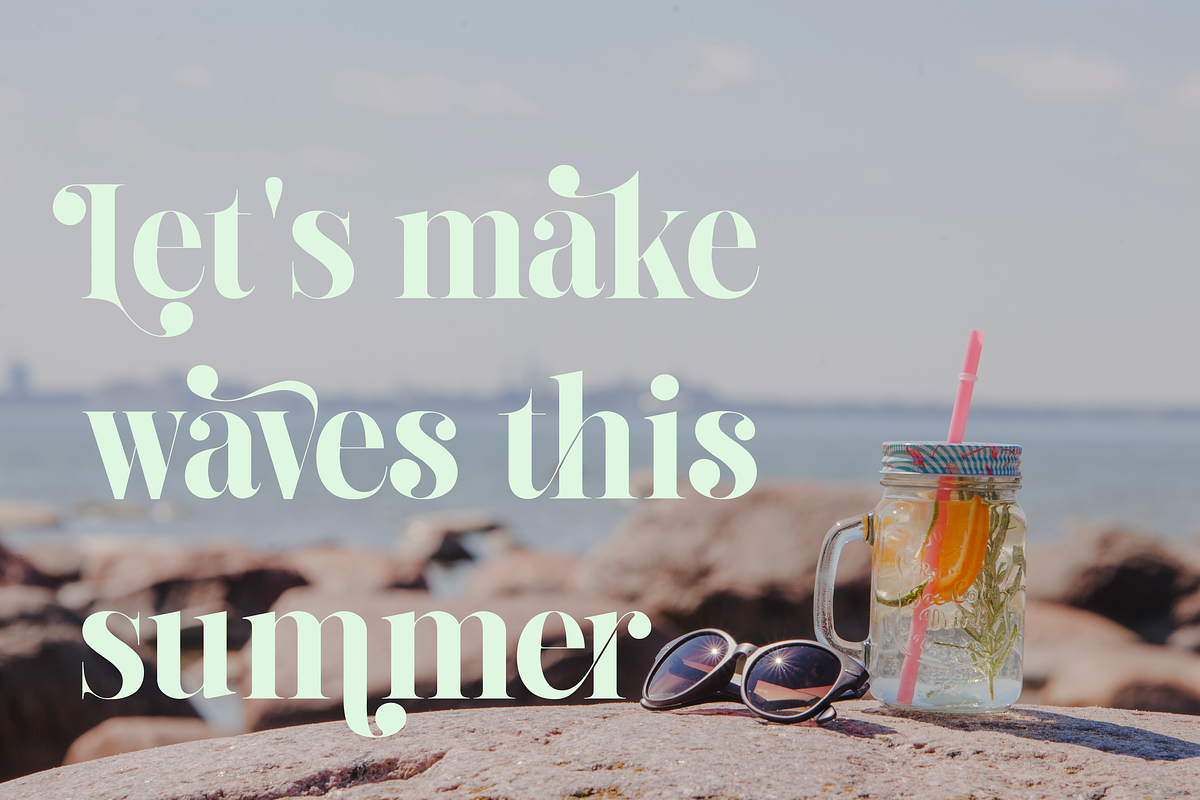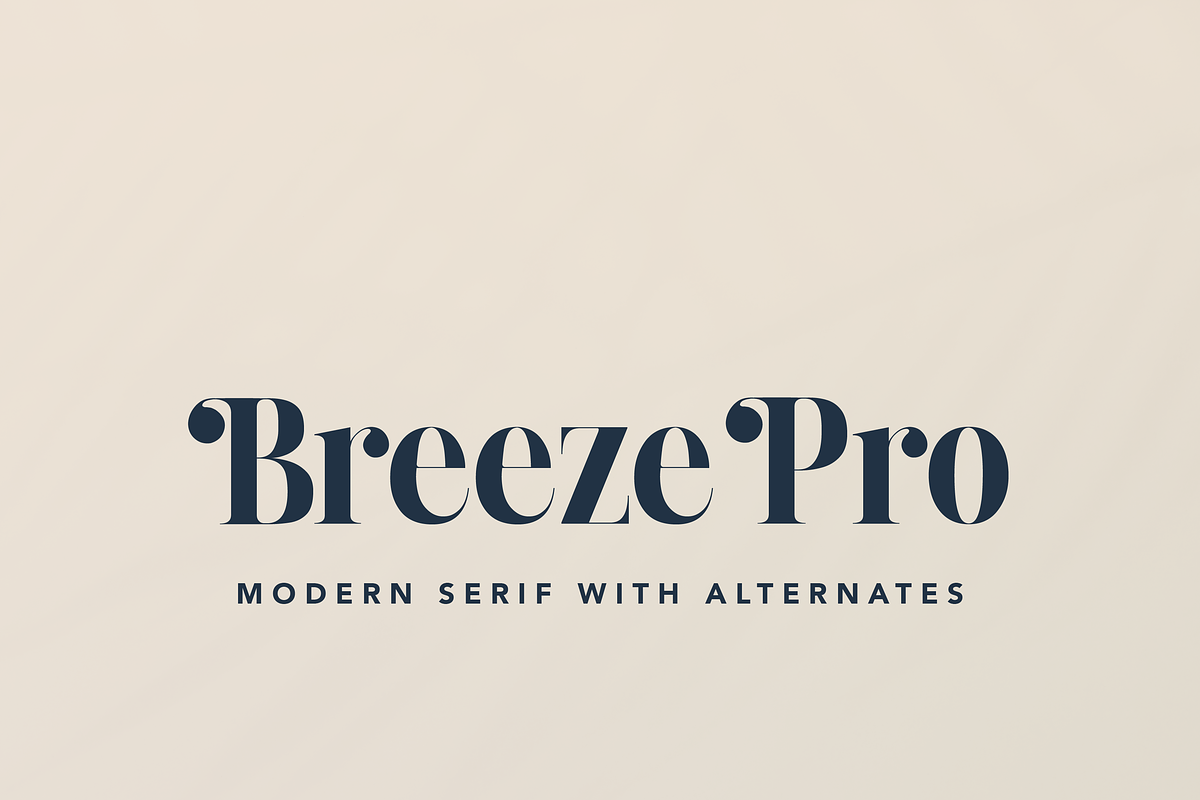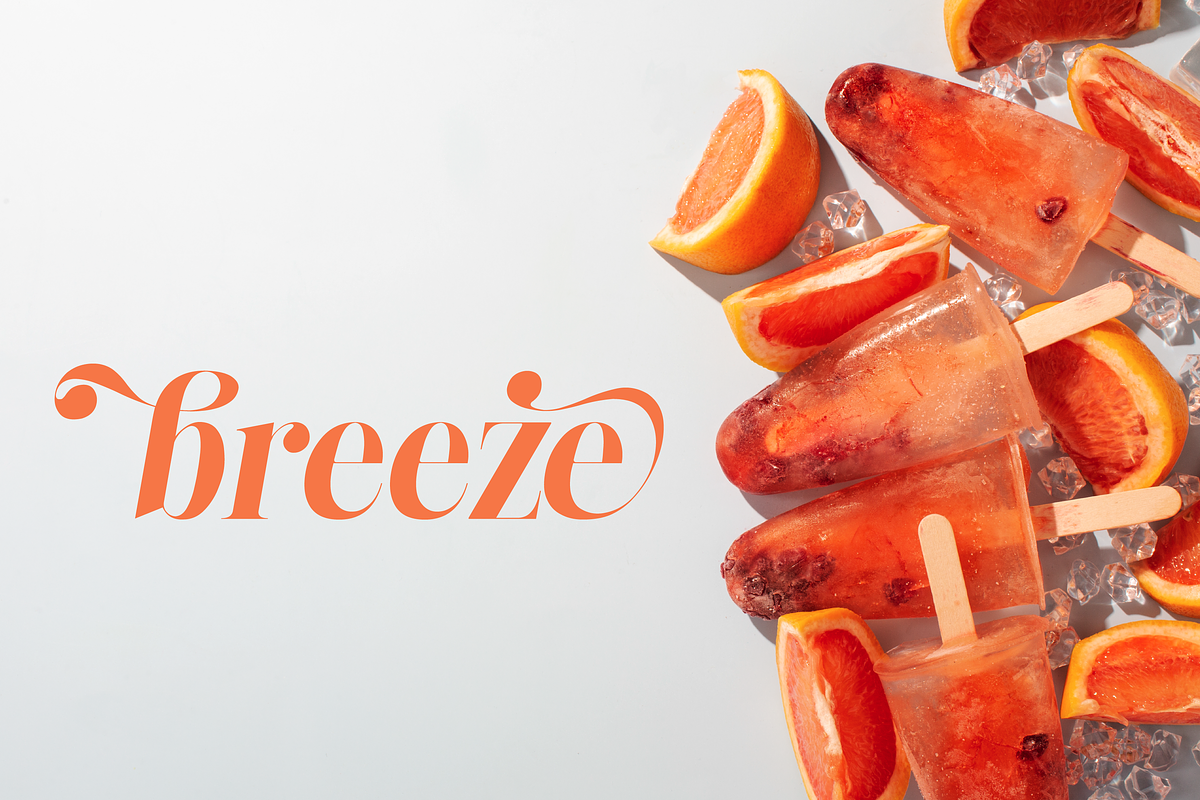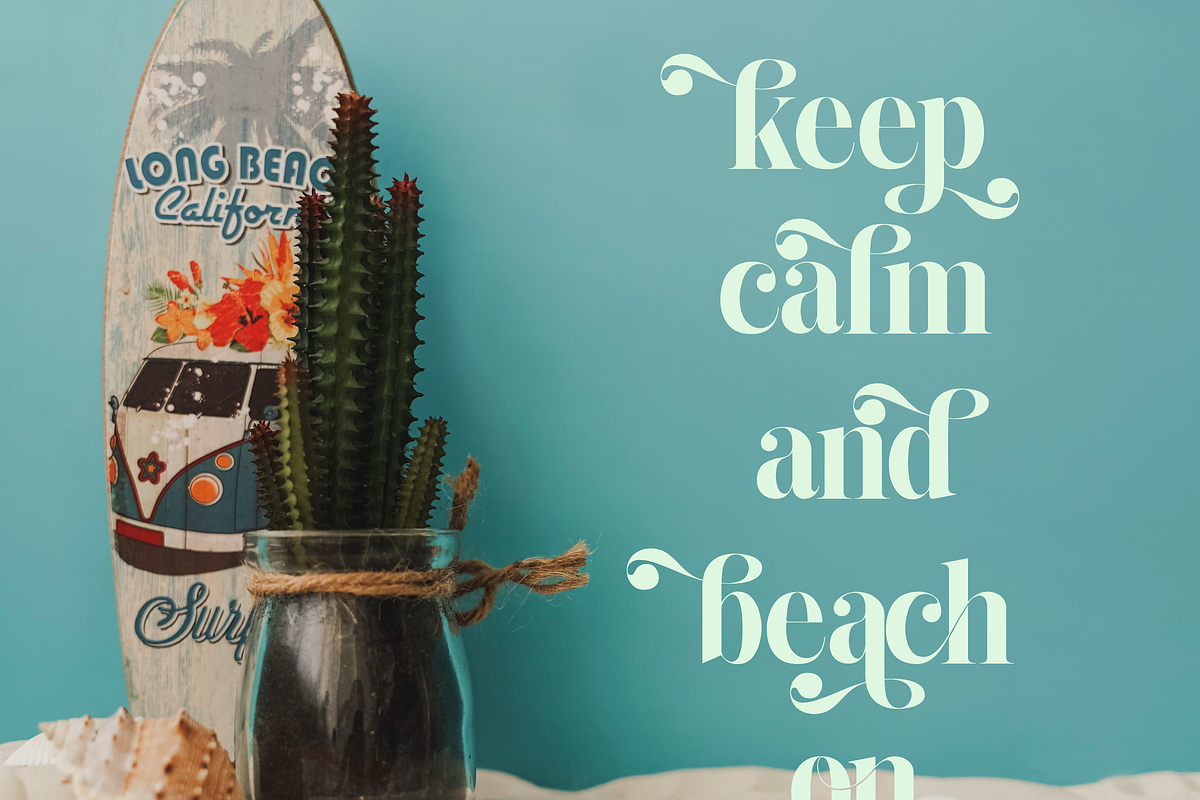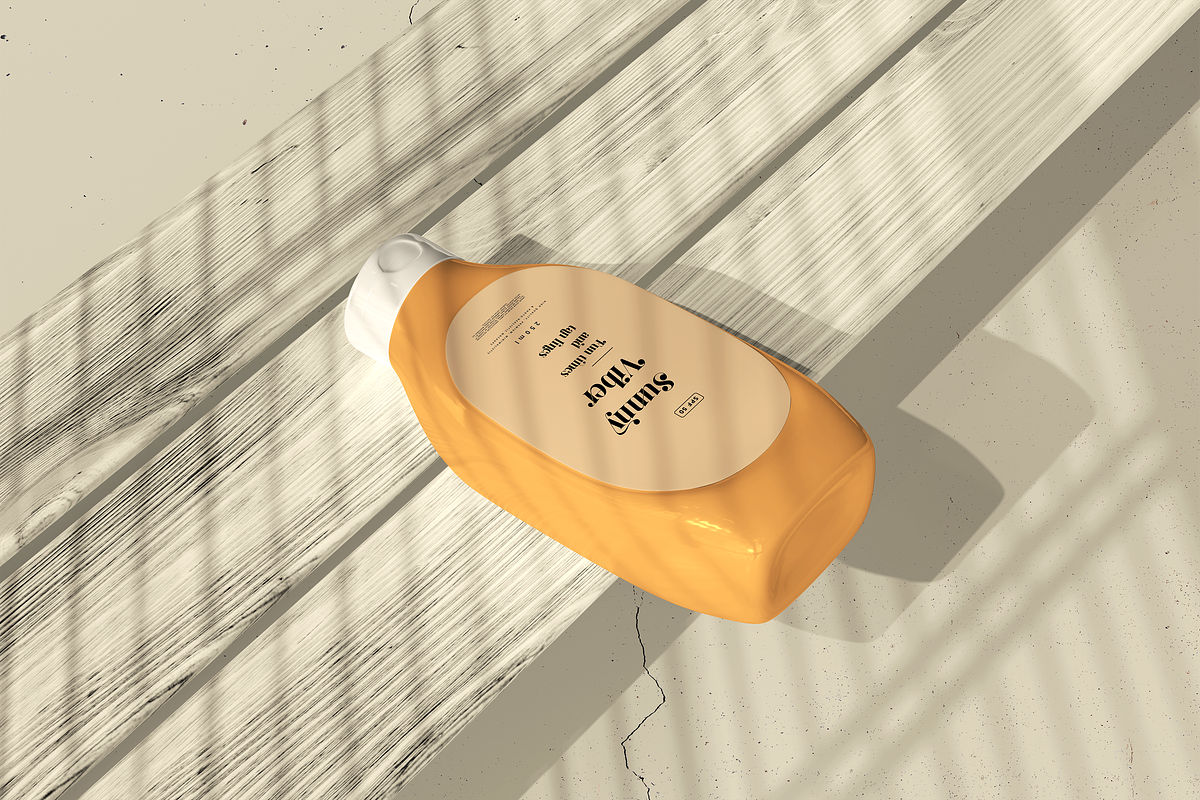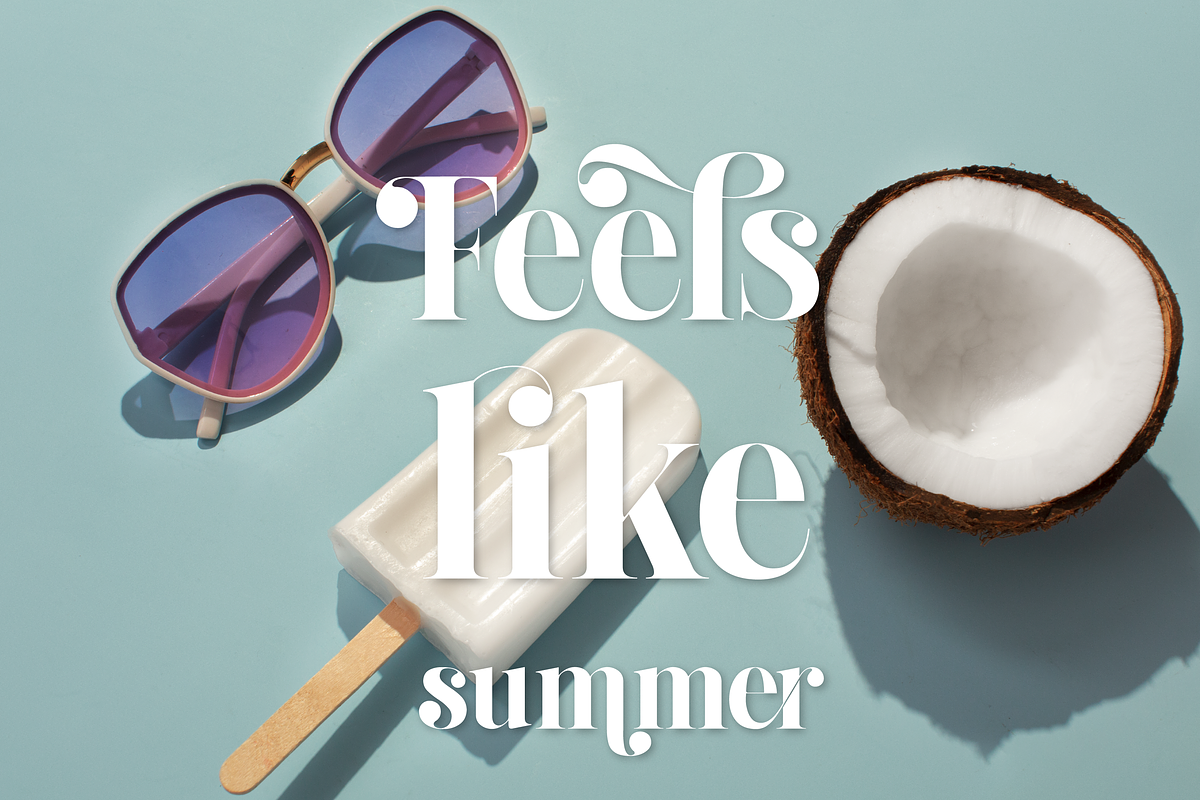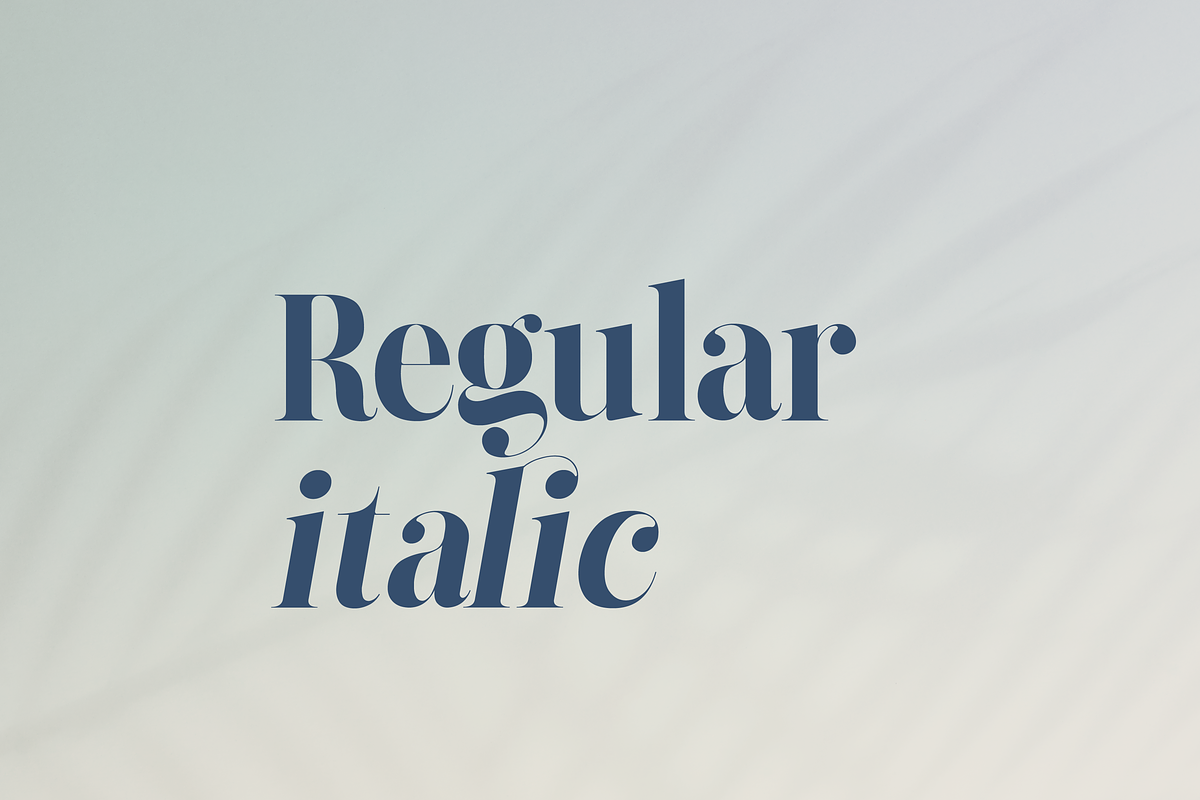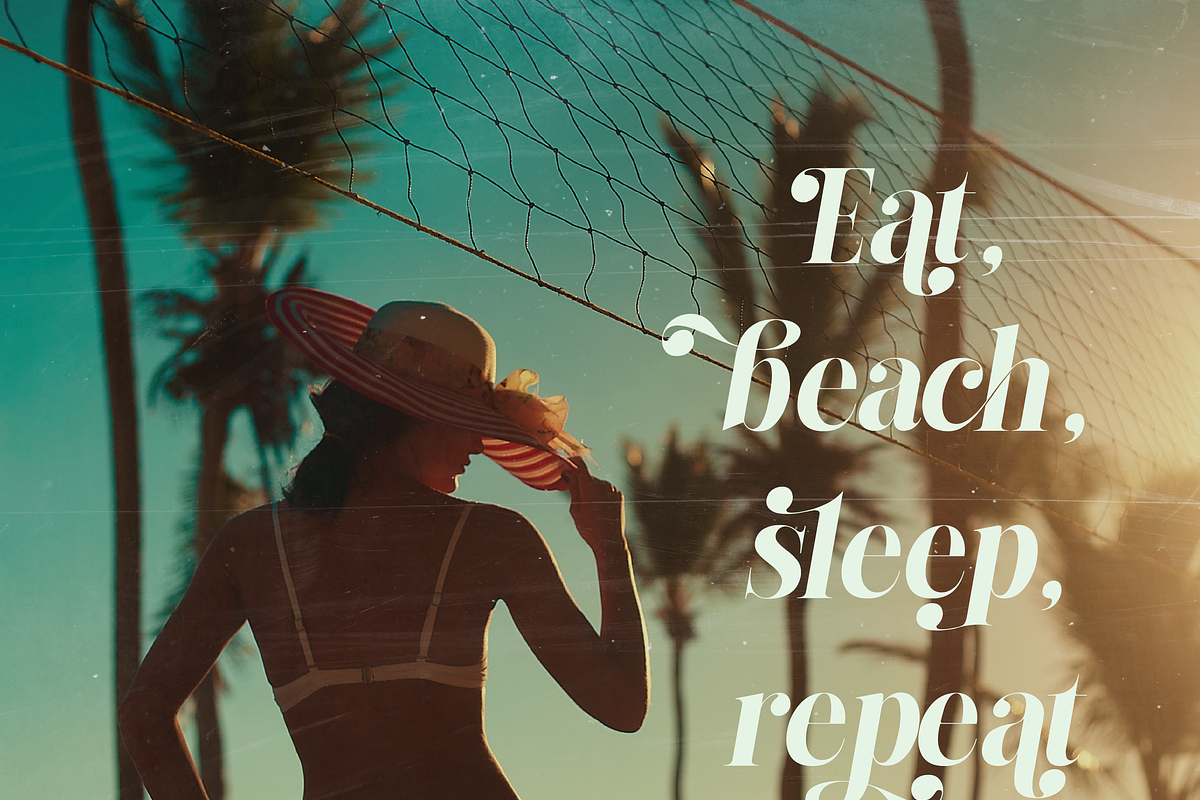
Breeze Pro – Modern Serif
Breeze Pro – Modern Serif with Stylish Alternates
Breeze Pro is a refined serif typeface imbued with a light, airy charm—perfectly balancing elegance and readability.
Key Features: • Modern Serif Aesthetic – Clean, structured serifs with a summery, sophisticated vibe. • Alternate Letterforms – Includes stylistic variations accessible via OpenType features in apps like Photoshop, Illustrator, or a character map. • Regular & Italic Styles – Comes in both upright and italic versions for added flexibility.
Breeze Pro delivers a refreshing serif style with personality, ideal for branding, editorial layouts, packaging, and more. Its alternates and font styles make it a flexible and charming addition to any design toolkit.